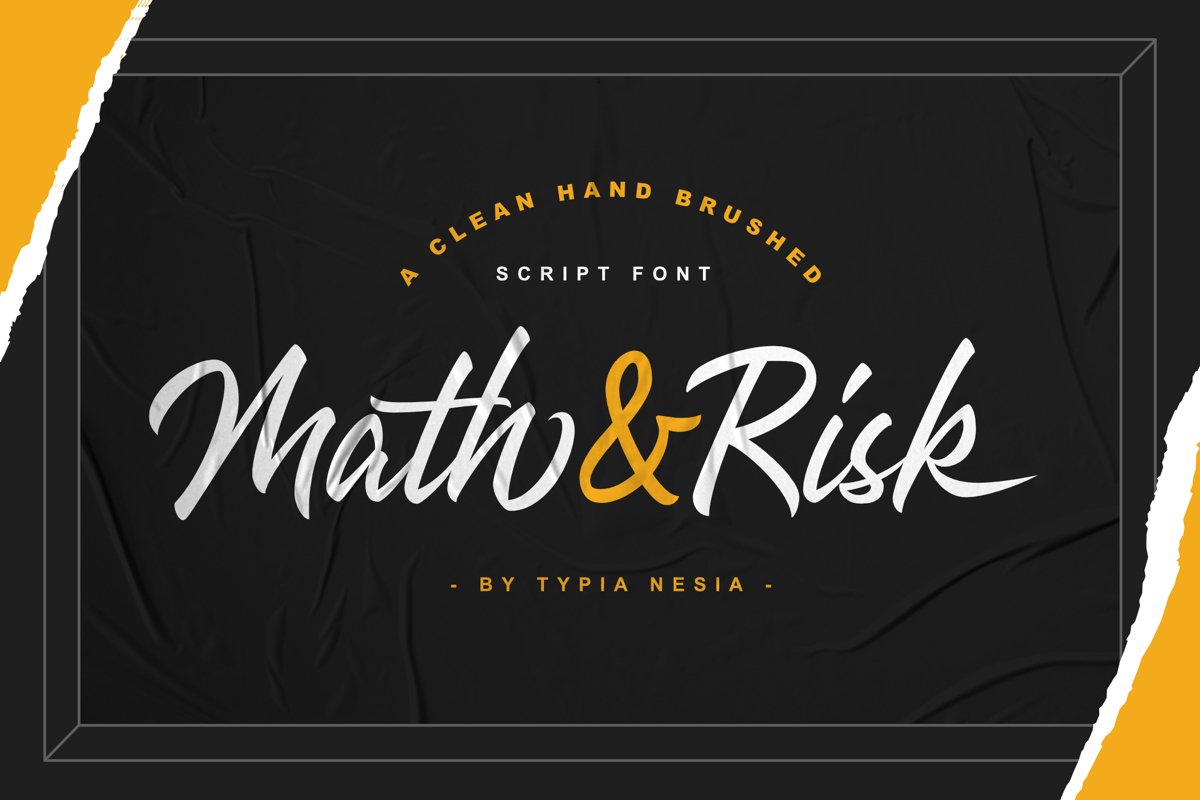
Math and Risk
Math and Risk - Clean Brush Calligraphy / Lettering Logo Font
* Math and Risk (.ttf + .otf) comes with upper and lowercase Standard Characters, Punctuation, Numerals. And other Glyphs variation of the OpenType features such as Standard Ligature, Stylistic Alternate, and Stylistic Set.
* Includes a range of multilingual characters.